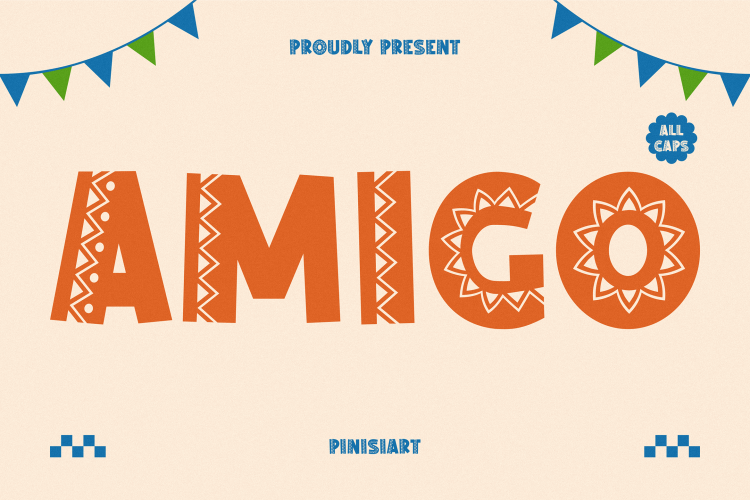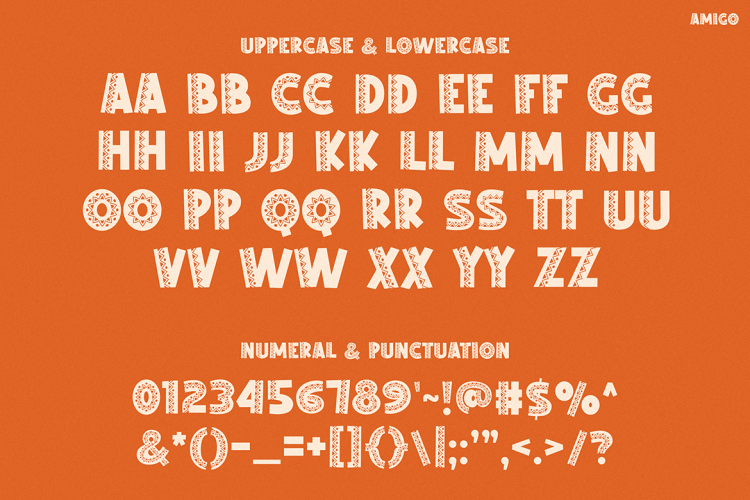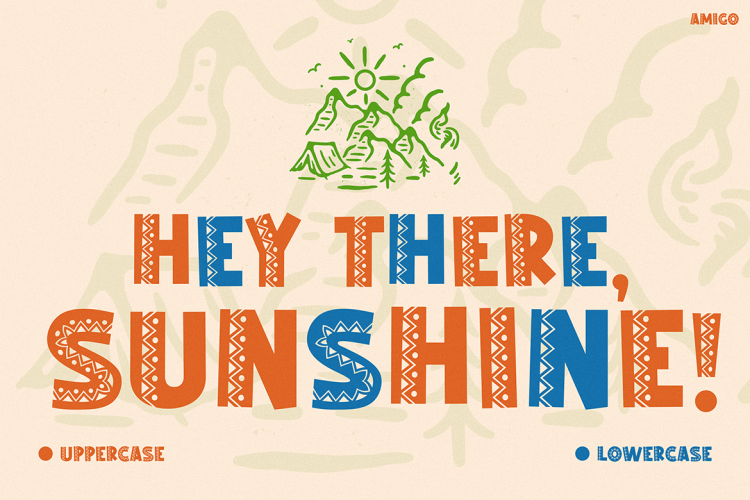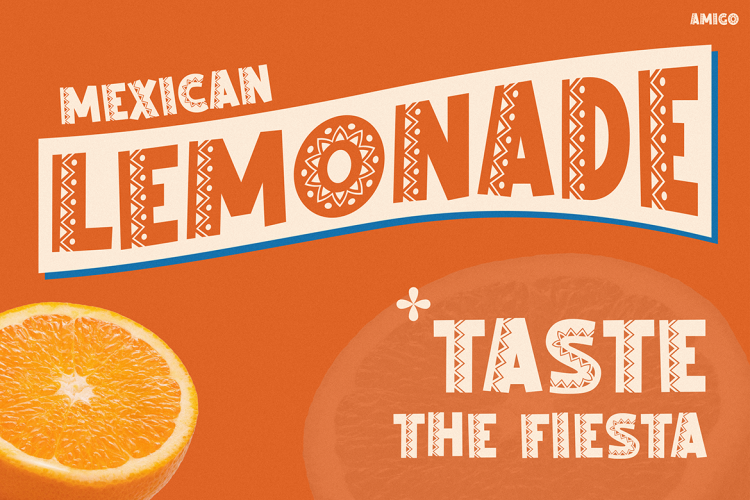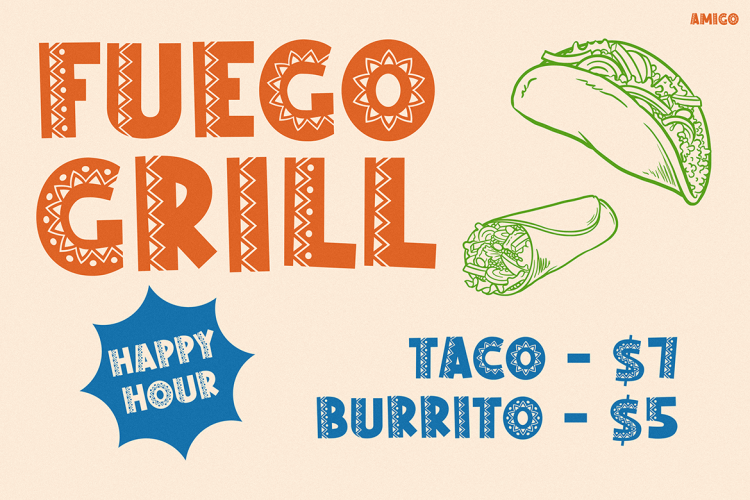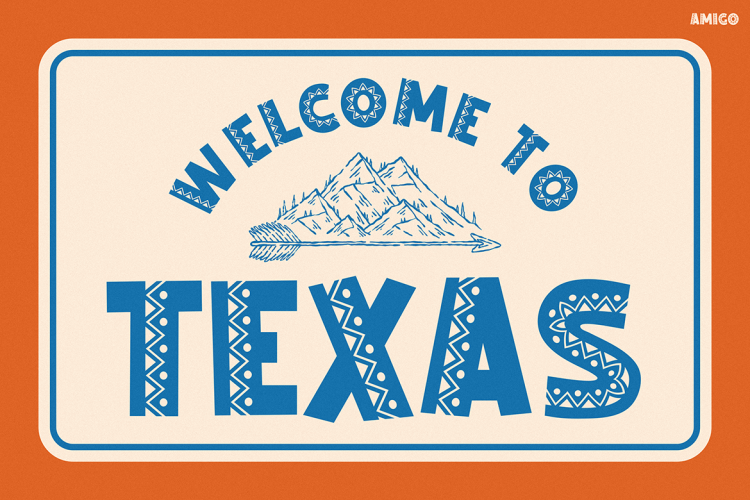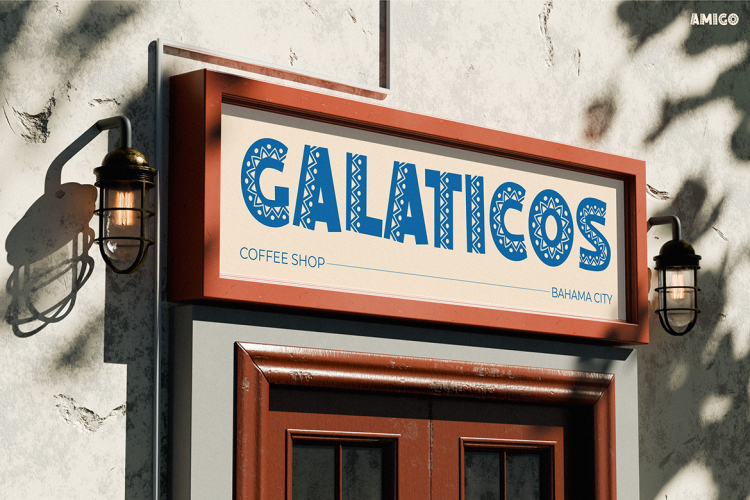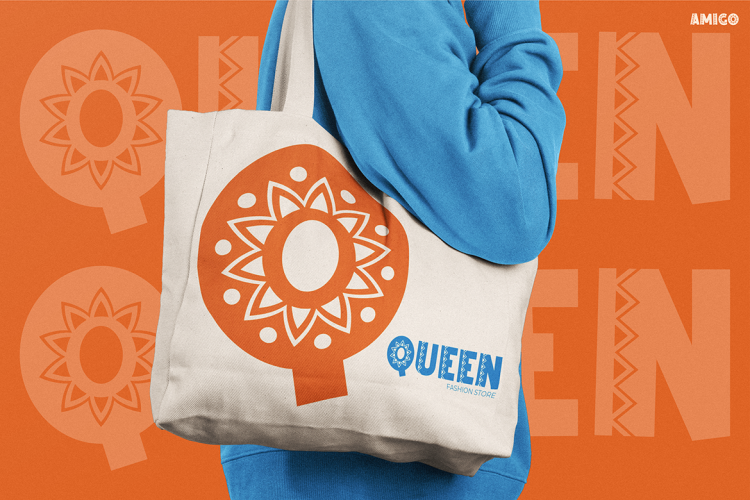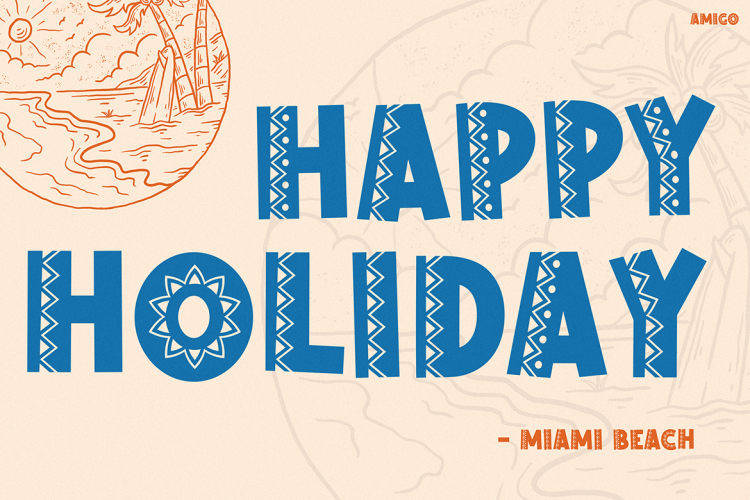
Kids Font Amigo – Chunky, Fun, and Full of Fiesta Energy!
Kids Font Amigo is a bold and cheerful display typeface that spreads instant happiness. Inspired by Latin fiesta vibes and festive shapes, itโs designed to fill your projects with color, energy, and joy. Moreover, every letter feels handcrafted, giving your text a warm and friendly personality. With its playful cuts and decorative edges, this font makes every word feel alive and exciting.
This typeface stands out with its strong geometric style, chunky form, and handmade texture that combine to create a unique visual rhythm. Therefore, itโs perfect for designs that want to grab attention and share positive energy. Whether youโre crafting a childrenโs book cover, a food poster, or a fun social media design, Amigo instantly adds personality.
In addition, the font includes uppercase and lowercase letters, numbers, and punctuation. Its solid readability allows you to use it both for bold headlines and smaller taglines. Also, its lively charm ensures that your message always feels friendly and welcoming. With every curve and shape, Kids Font Amigo invites creativity and play.
Kids Font Amigo is ideal for designers, educators, crafters, and small business owners who want to add cheerful energy to their creations. It works beautifully for childrenโs books, classroom materials, party invitations, posters, packaging, and branding. Furthermore, itโs a great fit for playful merchandise, stickers, apparel, and any design that needs a fun touch.
Moreover, this font brings a unique festive feel that suits Mexican food branding, holiday promotions, toy packaging, and family-friendly campaigns. Because of its warm and friendly tone, it easily connects with kids and adults alike. As a result, it helps your designs look more inviting, expressive, and full of character.
Make It Yours!
Bring your creative ideas to life with Kids Font Amigo โ a chunky, decorative typeface that celebrates happiness and imagination. Moreover, it helps your text shine with energy and friendliness while keeping your message clear and professional.